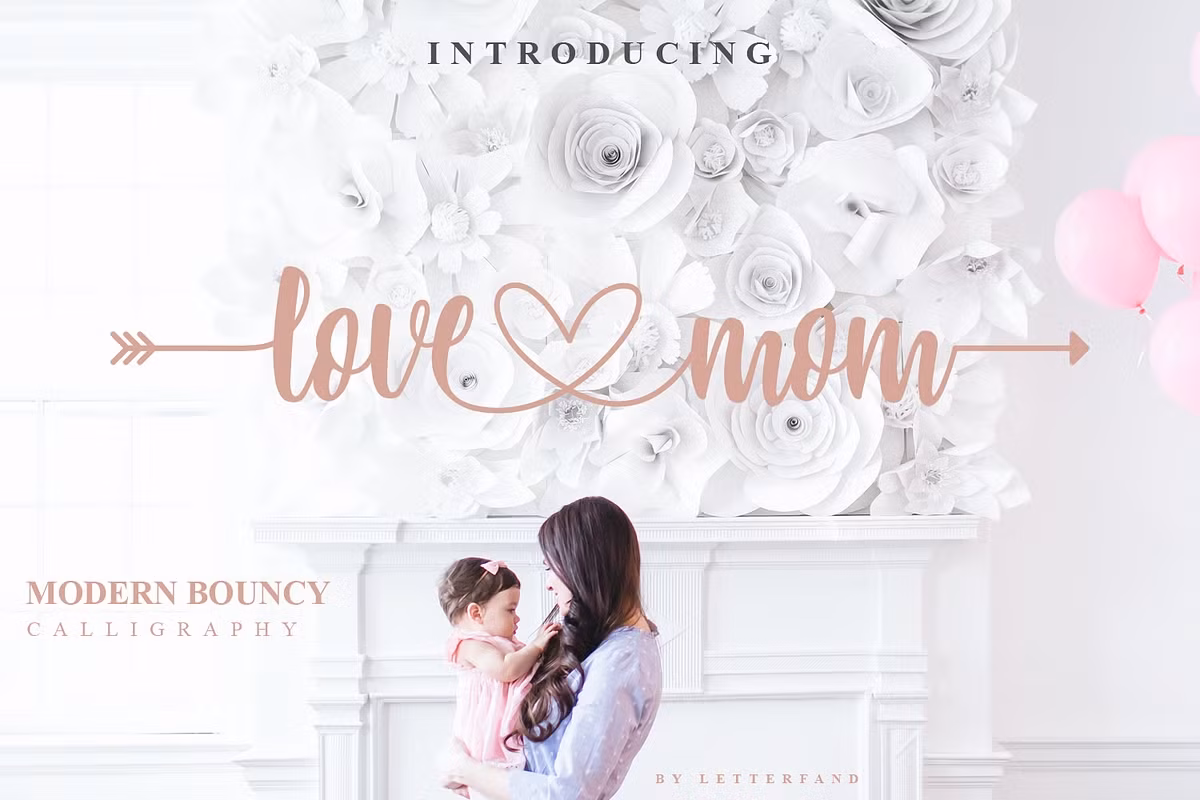
Love Mom Font Free Download is a heartfelt and beautiful script typeface designed to evoke love and warmth. With its elegant curves and flowing strokes, this font is perfect for creating personalized gifts, greeting cards, Mother's Day designs, and other heartfelt projects. Its smooth, handwritten style adds a personal touch to any design, making it ideal for logos, quotes, invitations, and more. Whether you’re creating a special card for your mom, designing a family logo, or crafting loving messages, Love Mom Font Free Download lets you explore its emotional charm in personal projects before purchasing a commercial license. Infuse your work with the warmth and affection of this beautiful, script font.